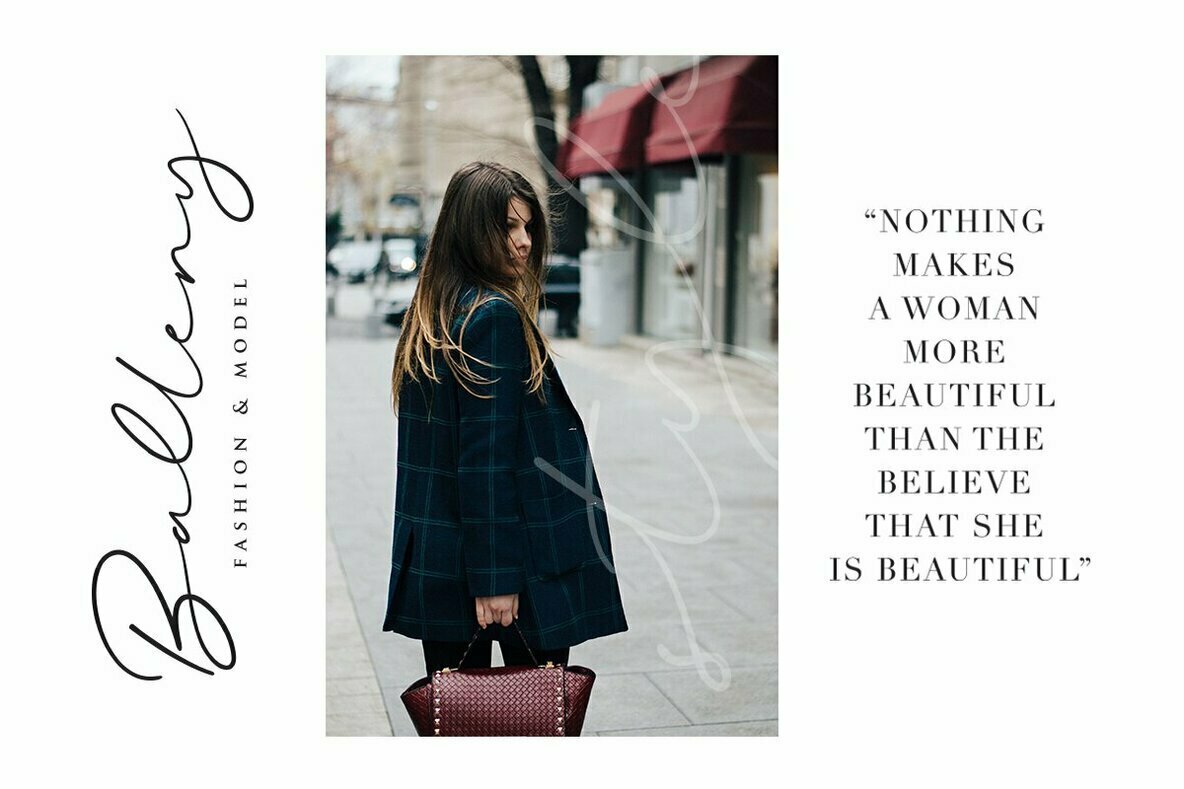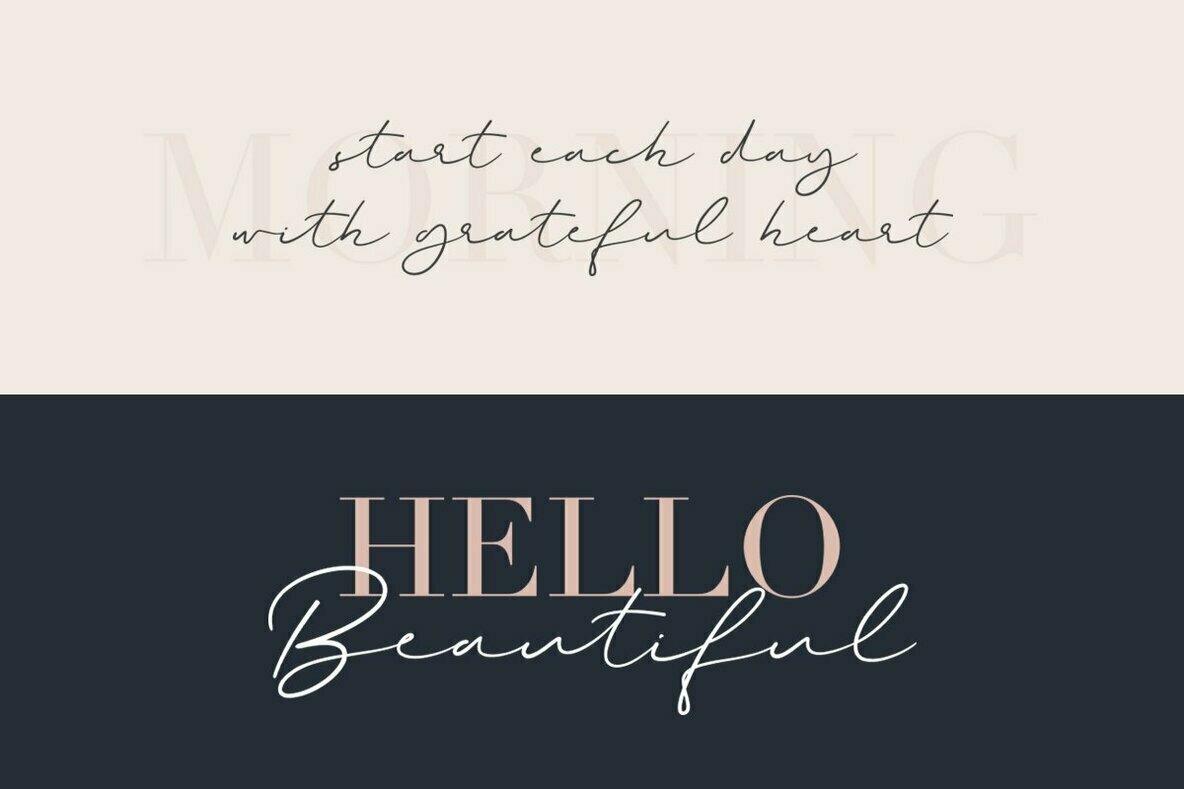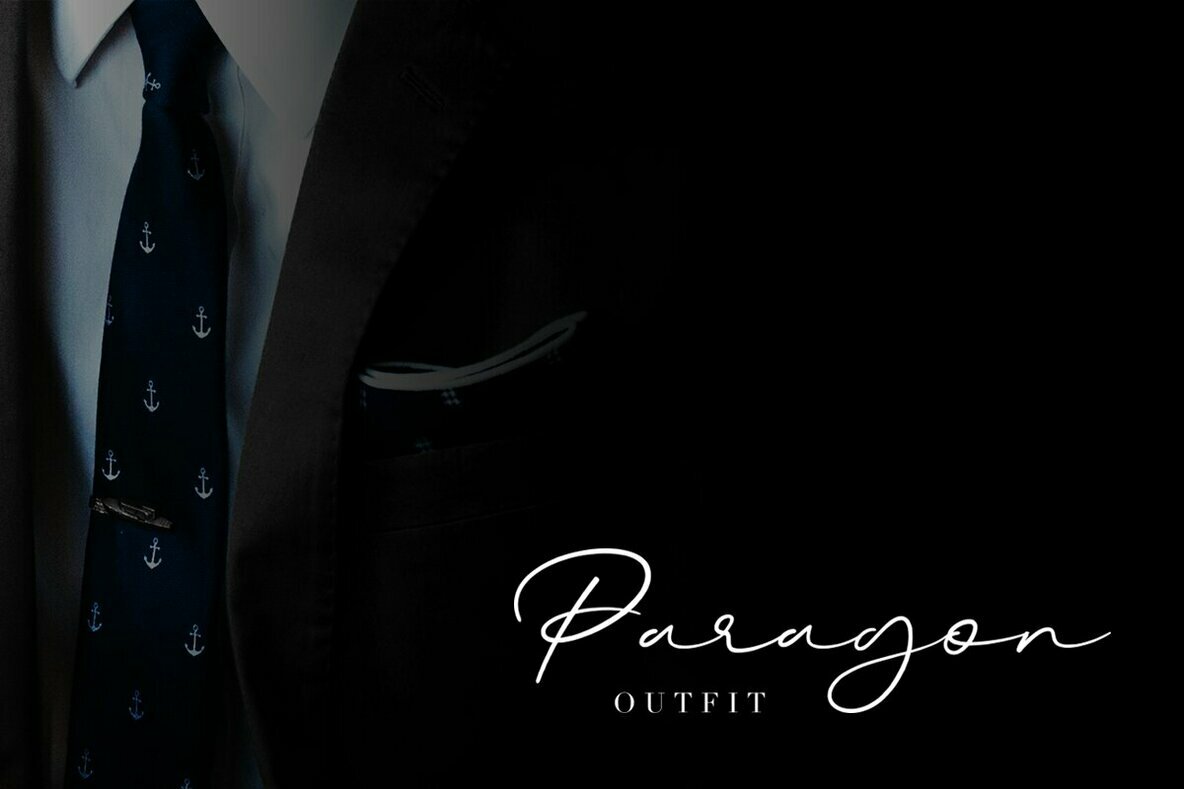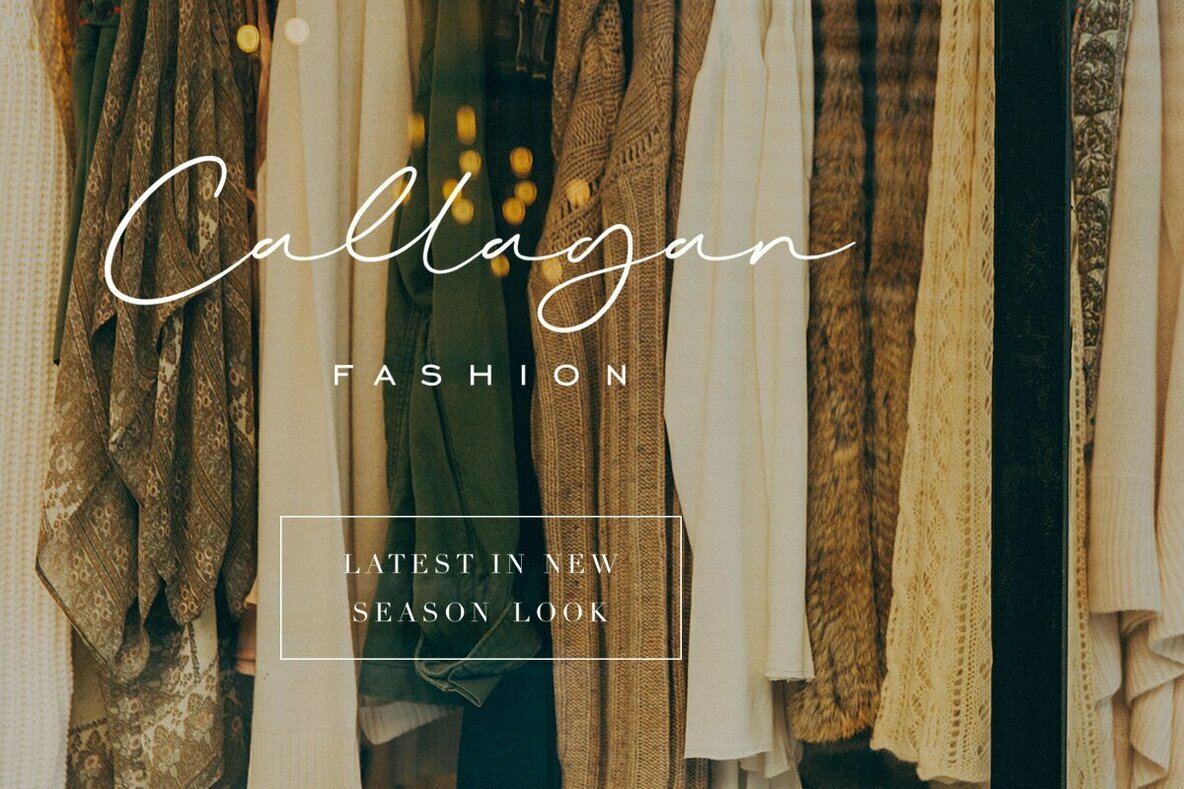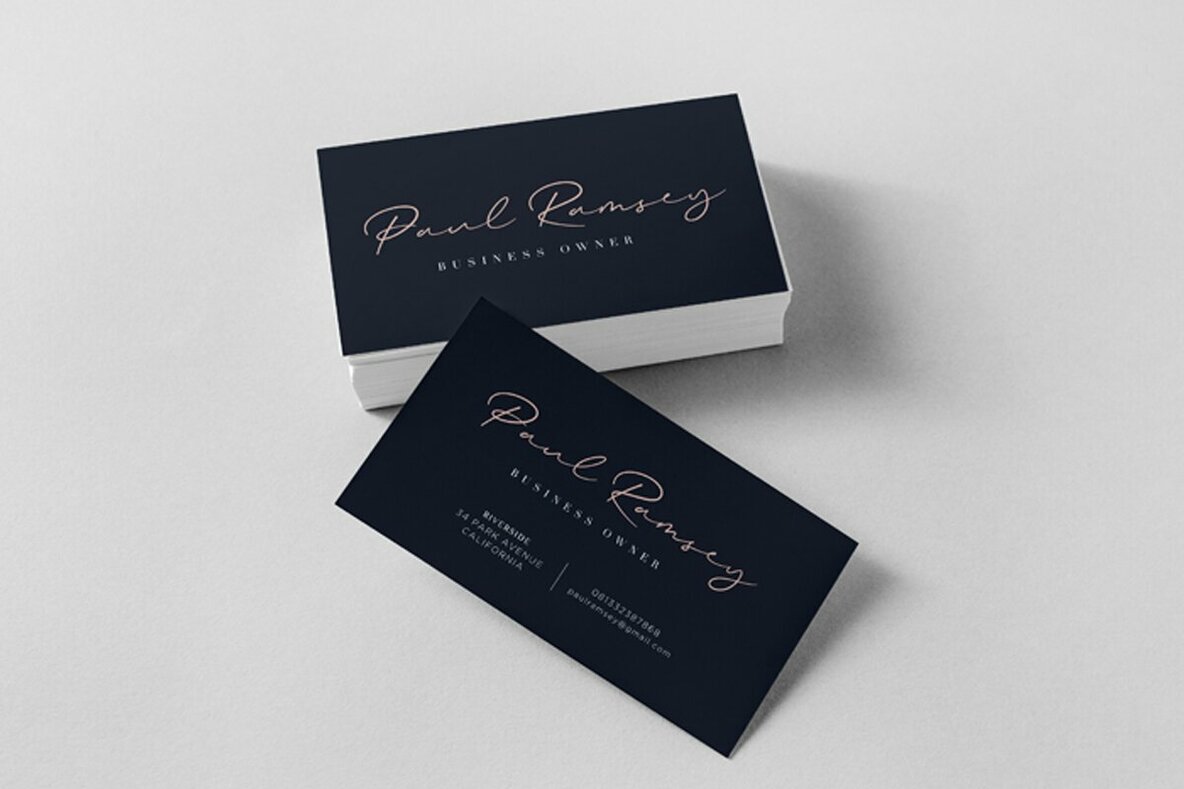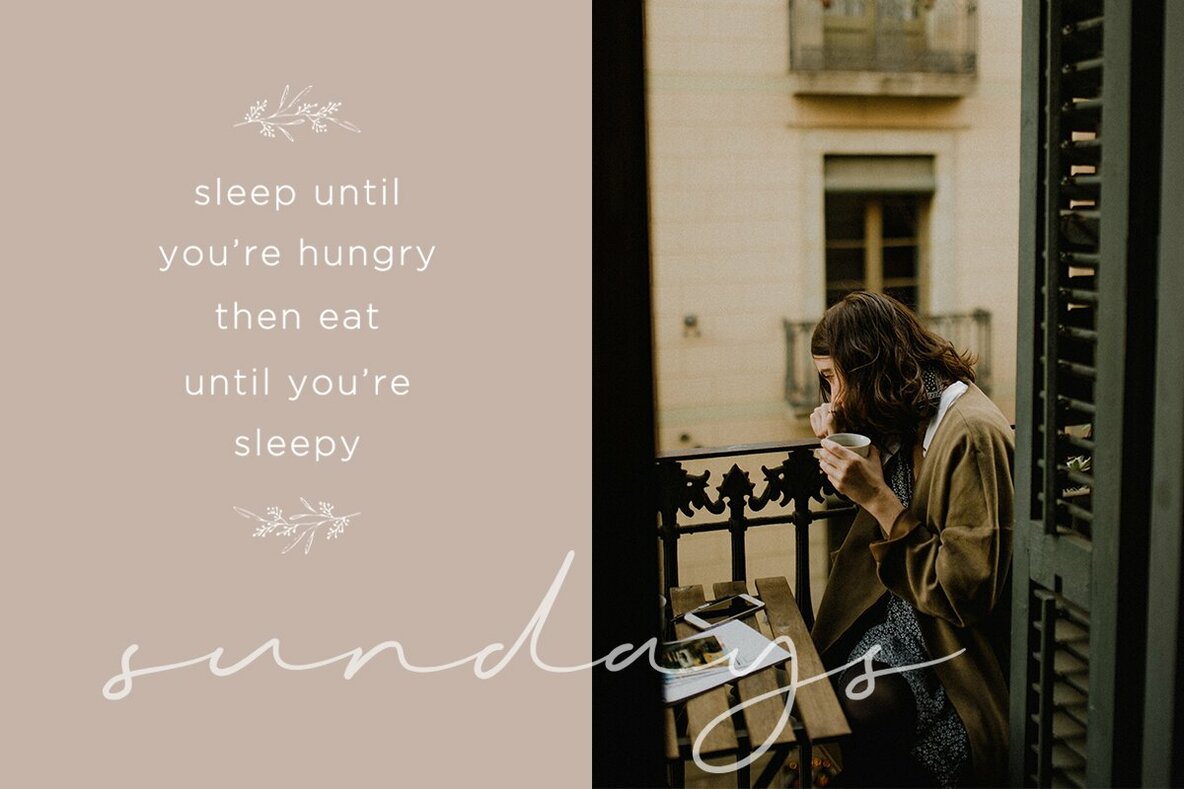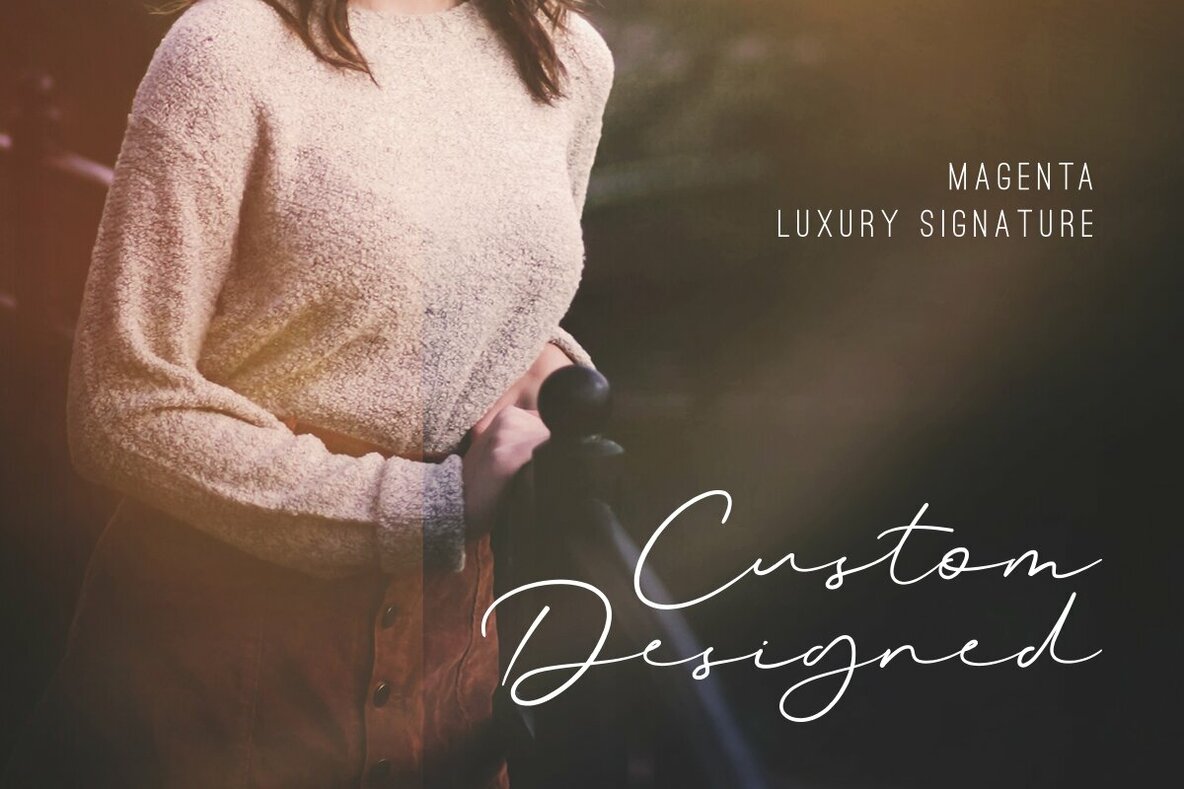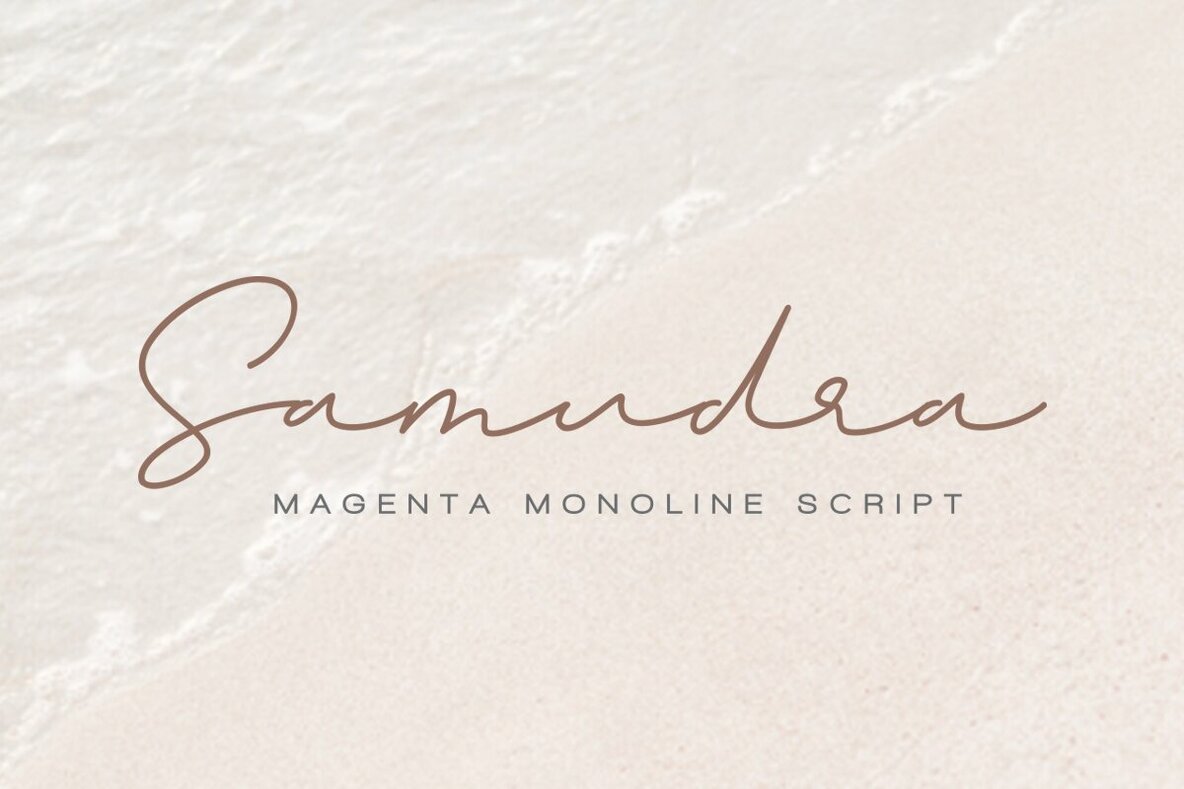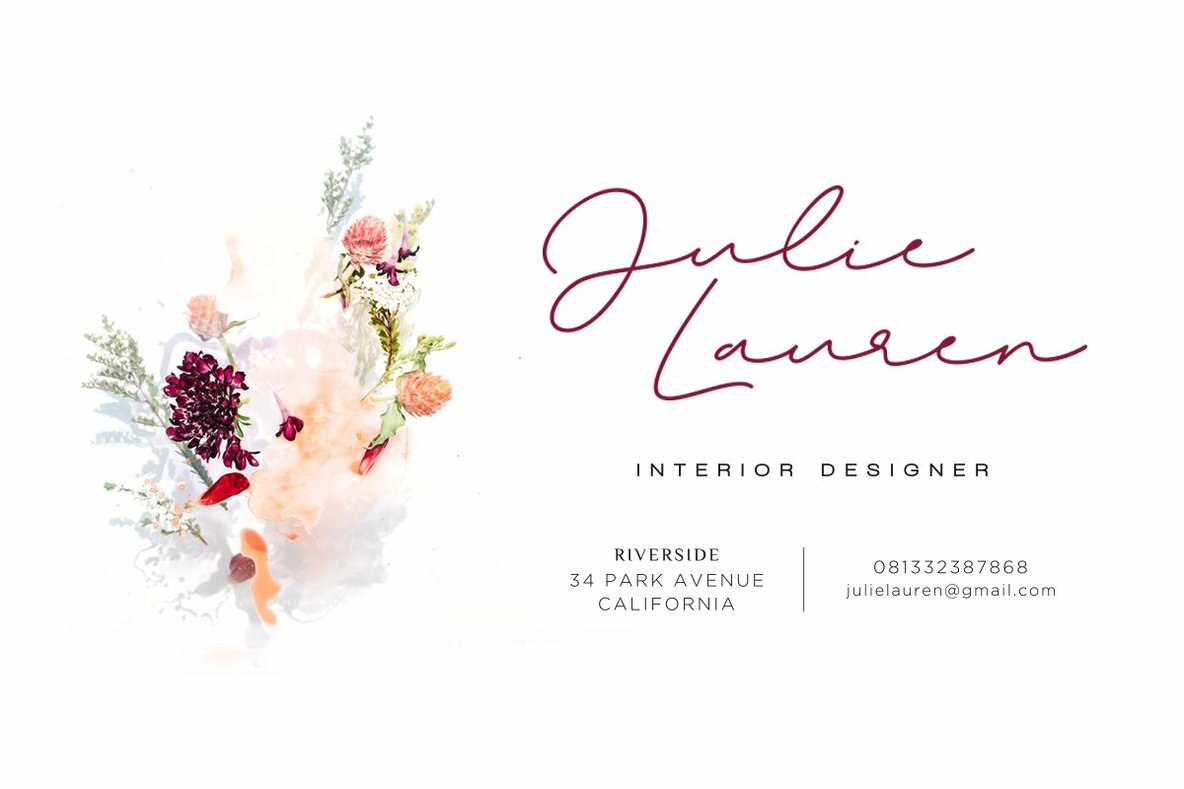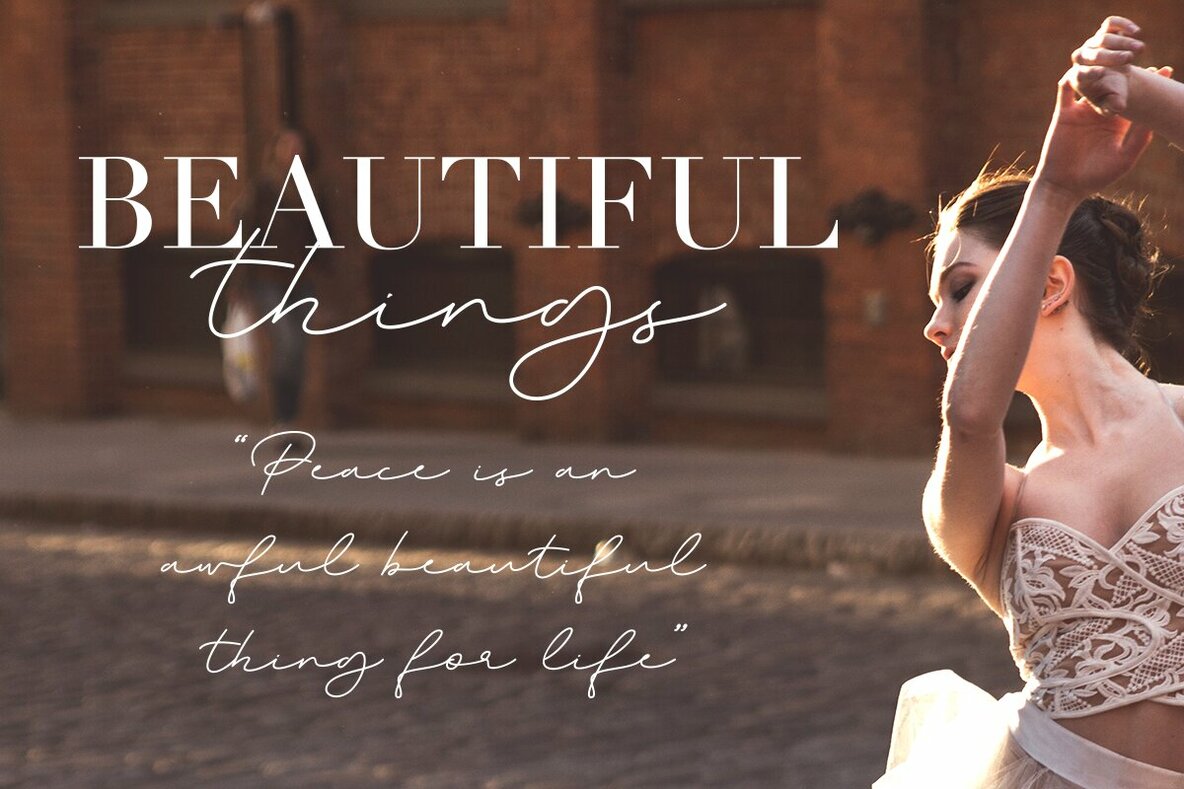
Magenta Font
Magenta Regular
Magenta Bold
Magenta Monoline Bold
Magenta Monoline
Magenta, crafted by Dharmas Studio, is a signature script font that embodies luxury and carefreeness while offering versatility across its applications. This beautifully hand-created font collection enhances professional design work with its timeless elegance. Magenta presents two distinctive versions—signature and monoline scripts. Its graceful style makes it an ideal choice for signature logos, printed quotes, blogs, and social media headers, while its adaptability shines in product packaging and much more. Features: Each version of Magenta includes PUA Unicode, ensuring ease of access to its special characters, allowing for a seamless integration into your design projects.Magenta: An Elegant Script Font Collection